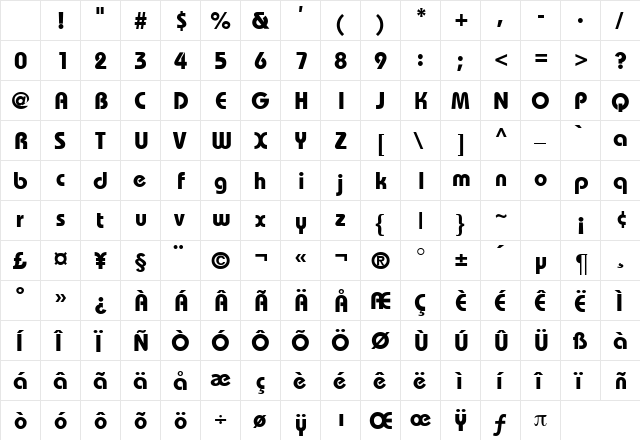
Complete BaronBlackDB Normal glyph index. Displaying only characters natively supported by BaronBlackDB Normal font.
BaronBlackDB is a composed and adaptable typeface that performs quietly and consistently across a wide range of design contexts.